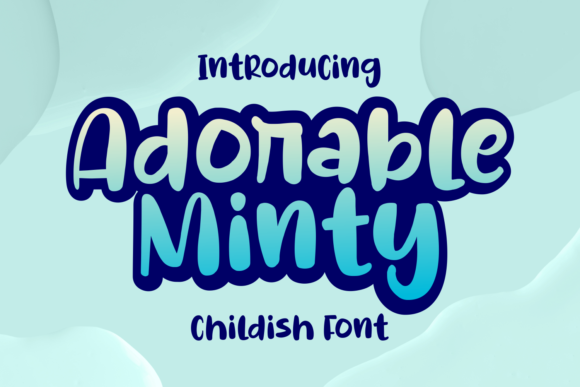
Prepare to be mesmerized by Adorable Minty Font, the display font that oozes charm and sophistication. This captivating creation by Dreamink (7ntypes) is not just a font; it's an artistic expression that brings life to your digital designs.
With its irresistibly chic and trendy style, Adorable Minty Font elevates ordinary text into captivating statements. Picture your product packaging adorned with the elegant curves and playful strokes of this font, instantly grabbing the attention of potential customers. Or envision your branding projects infused with a touch of whimsy and uniqueness, leaving a lasting impression on your audience.
Step into the world of magazine covers adorned with Adorable Minty Font, where headlines dance and leap off the page, inviting readers to delve into the stories within. Unleash your creativity on social media platforms, where this font transforms ordinary posts into visually stunning expressions of your brand's personality.
Indulge in the beauty of wedding invitations and stationery graced with Adorable Minty Font, where every letter carries a hint of romance and joy. Whether you're a seasoned designer or simply seeking a font to add a dash of flair to your personal projects, Adorable Minty Font is your perfect companion.
Why settle for ordinary when you can embrace the extraordinary? Dive into the world of Adorable Minty Font and discover a world of typographic delights. Let your imagination run wild as you create designs that captivate, inspire, and leave an indelible mark on your audience.